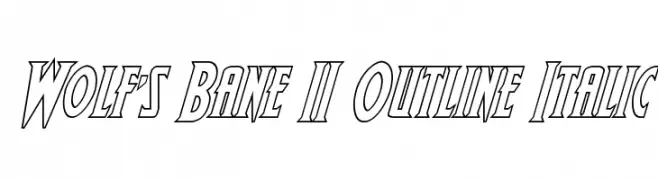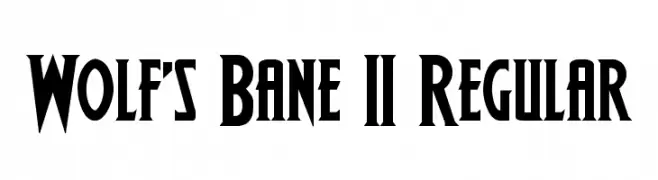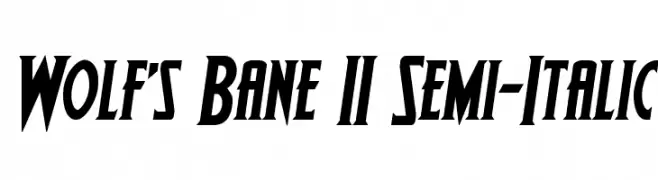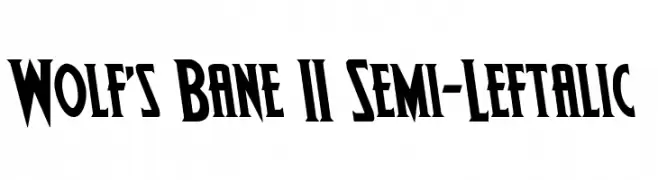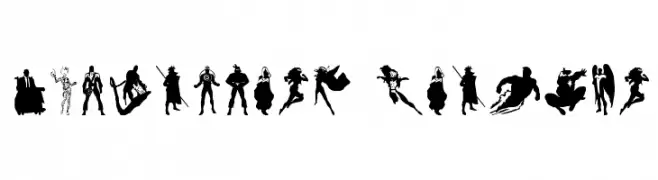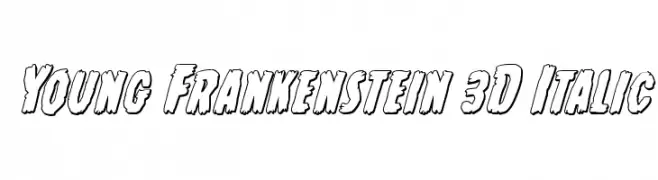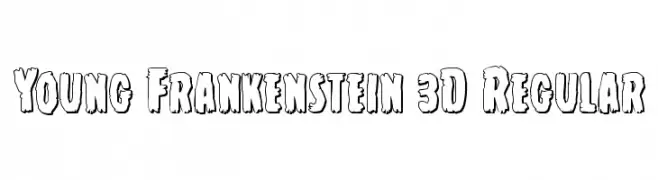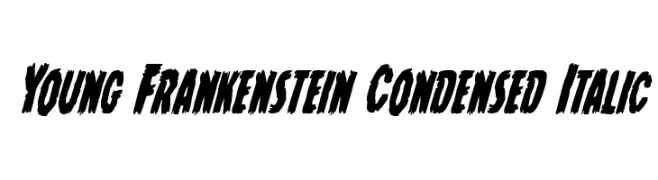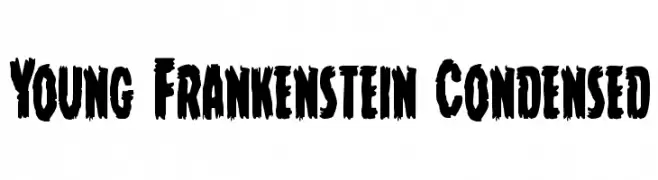
A bold, outlined font with sharp, angular edges and a geometric style.
A bold, italicized outline font with a dynamic and energetic style.
A bold, angular font with a vintage, gothic style.
A bold, semi-italic font with angular cuts and a dynamic, modern style.
A bold, left-leaning font with sharp angles and a dynamic presence.
Silhouette-based display font featuring superhero and action figure shapes.
A bold, 3D italic font with jagged edges, ideal for horror-themed designs.
A bold, playful 3D font with a whimsical, comic book style.
A bold, condensed font with a jagged, horror-inspired style.
A bold, condensed italic font with sharp, jagged edges for dramatic impact.